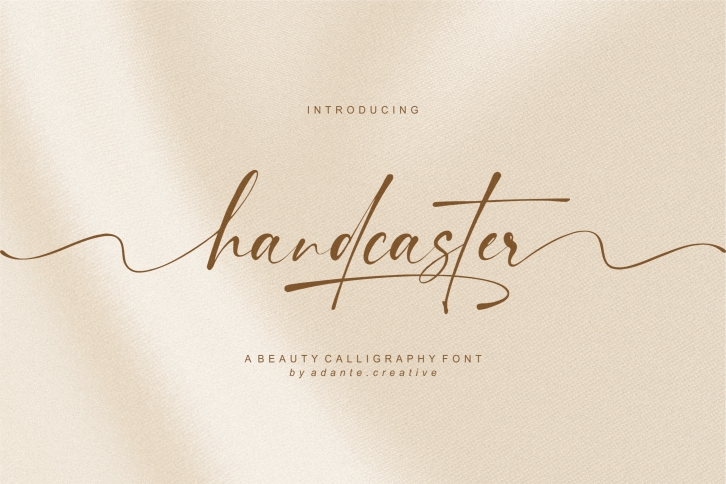
Handcaster is a dazzling script font. This font is neatly crafted and highly detailed. Whatever the topic, this font will be a wonderful asset to your font library, as it has the potential to enhance any creation.
This font is PUA encoded which means you can access all glyphs and swashes with ease!